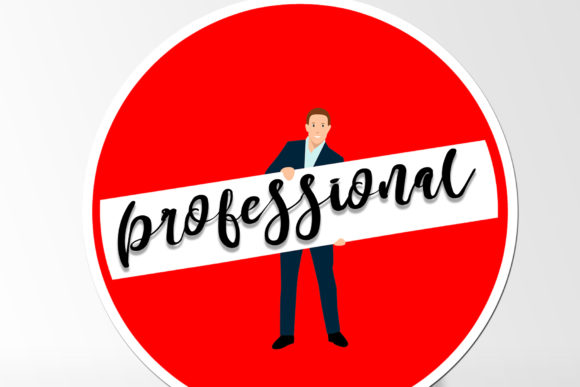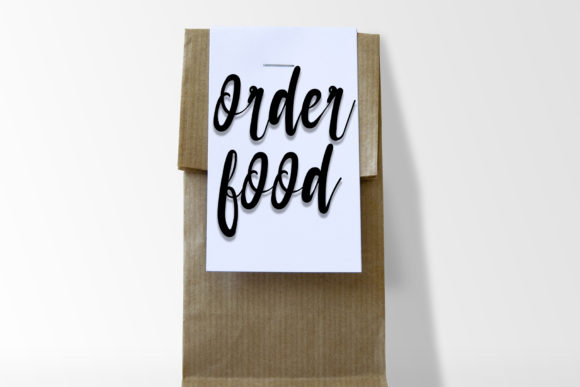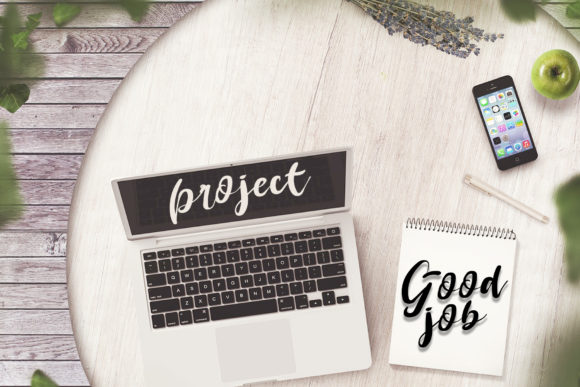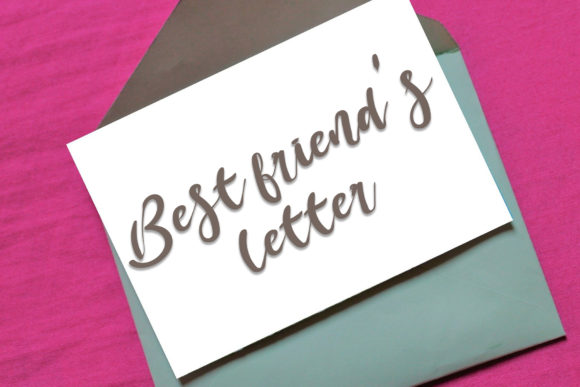
Introducing Classic Valentine Font: The Perfect Choice for Your Valentine’s Day Projects
Valentine’s Day is just around the corner, and as a designer or crafter, you’re probably on the lookout for the perfect font to make your projects stand out. Look no further than the Classic Valentine Font, a genuine and graceful script font that’s sure to add a touch of elegance to your creations.
What Makes Classic Valentine Font So Special?
Classic Valentine Font is a beautifully crafted script font that’s designed to enhance the beauty of your projects. Not too thin and not too thick, this font strikes the perfect balance between sophistication and readability. With its varied strokes and balanced design, Classic Valentine Font is the perfect choice for a wide range of projects, from Valentine’s Day cards and invitations to wedding stationery and more.
Key Features of Classic Valentine Font
- Genuine and Graceful Design: Classic Valentine Font features a genuine and graceful script design that’s perfect for adding a touch of elegance to your projects.
- Balanced and Varied: With its balanced and varied strokes, this font is easy to read and adds visual interest to your projects.
- Perfect for Valentine’s Day and Beyond: While Classic Valentine Font is perfect for Valentine’s Day projects, its timeless design makes it suitable for a wide range of projects, from wedding stationery to birthday cards and more.
Why Choose Classic Valentine Font?
There are many fonts to choose from, but Classic Valentine Font stands out from the rest. Here are just a few reasons why:
- Unique and Elegant: Classic Valentine Font features a unique and elegant design that’s sure to make your projects stand out.
- Easy to Read: With its balanced and varied strokes, this font is easy to read, even at small sizes.
- Versatile: Classic Valentine Font is perfect for a wide range of projects, from digital designs to print materials.
How to Use Classic Valentine Font in Your Projects
Using Classic Valentine Font in your projects is easy. Here are a few tips to get you started:
- Pair it with Other Fonts: Classic Valentine Font pairs perfectly with other fonts, such as sans serif fonts or bold scripts.
- Use it for Headings and Titles: This font is perfect for headings and titles, adding a touch of elegance to your projects.
- Add it to Your Digital Designs: Classic Valentine Font is perfect for digital designs, from social media graphics to blog posts.
Tips and Tricks for Working with Classic Valentine Font
Here are a few tips and tricks to help you get the most out of Classic Valentine Font:
- Experiment with Different Sizes: Classic Valentine Font looks great at a variety of sizes, from small and delicate to large and bold.
- Play with Color: This font looks great in a range of colors, from soft pastels to bold and bright hues.
- Use it to Add a Personal Touch: Classic Valentine Font is perfect for adding a personal touch to your projects, from handmade cards to bespoke wedding stationery.
Classic Valentine Font is a beautiful and elegant script font that’s perfect for adding a touch of sophistication to your projects. With its balanced and varied design, this font is easy to read and adds visual interest to your creations. Whether you’re a designer or crafter, Classic Valentine Font is the perfect choice for Valentine’s Day projects and beyond.